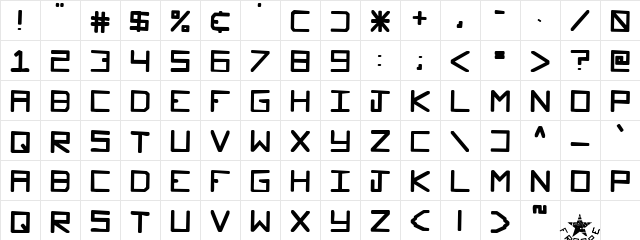
Glockenspiel Regular
Design Context for Glockenspiel Typeface
Glockenspiel takes a measured approach to typography — its balanced proportions and neutral character make it a reliable workhorse for both digital and print work.